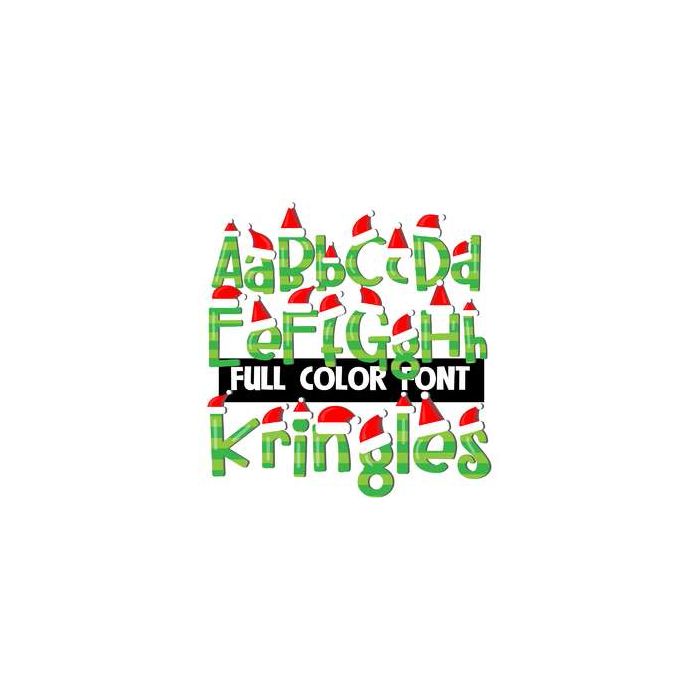
This full-color font features striped green letters with santa hats. This font works best for titles, displays, posters and more. Please note color fonts will show as black in non compatible programs. This font type is compatible with Silhouette Studio.